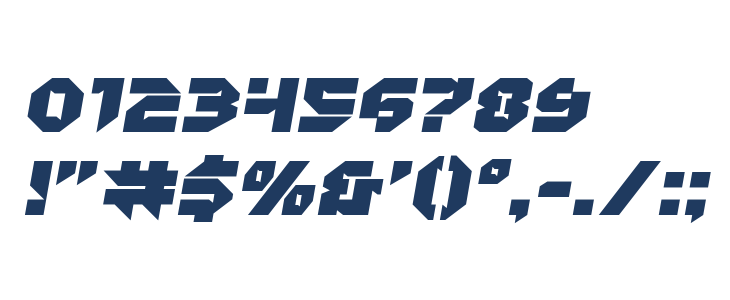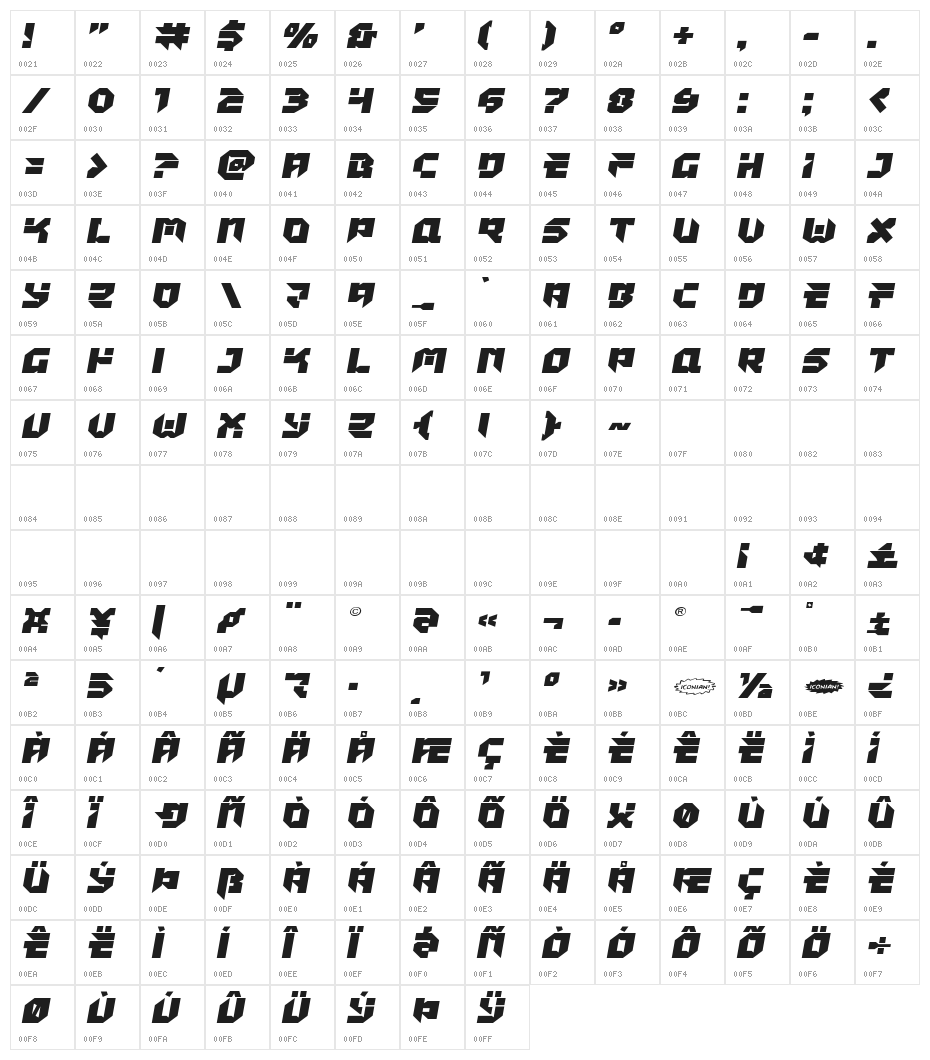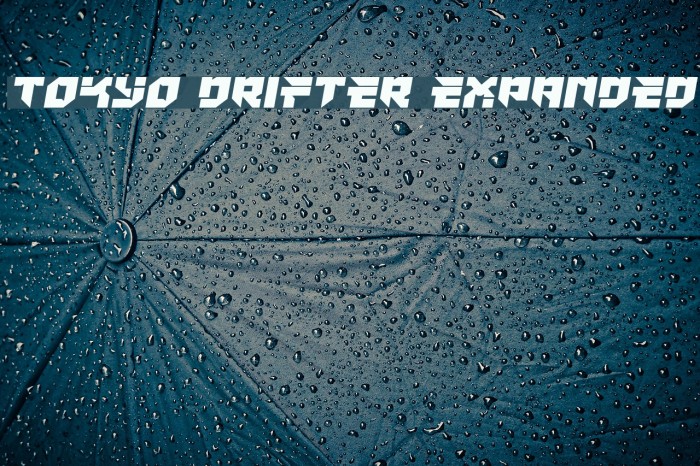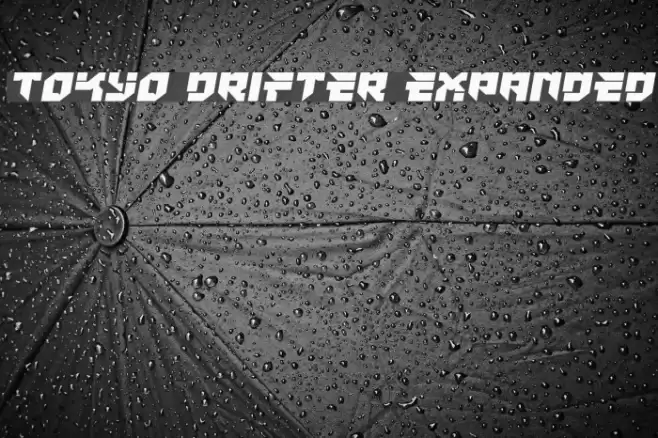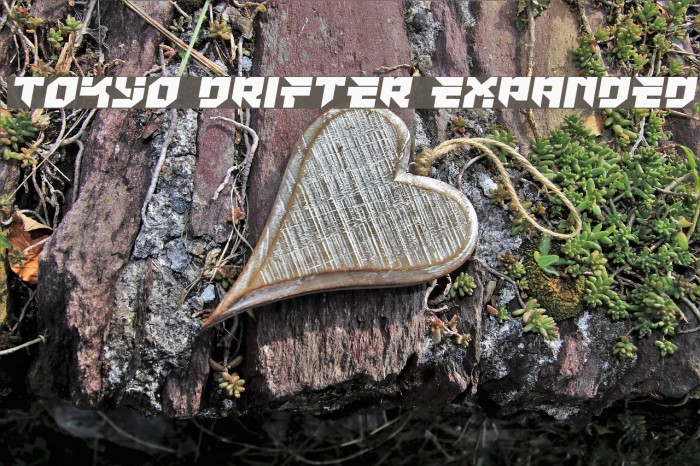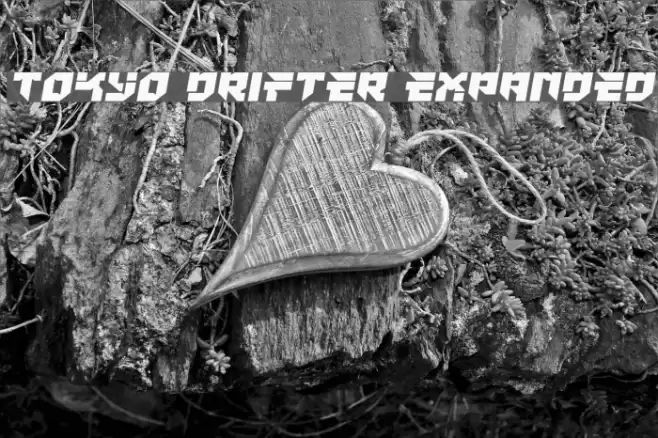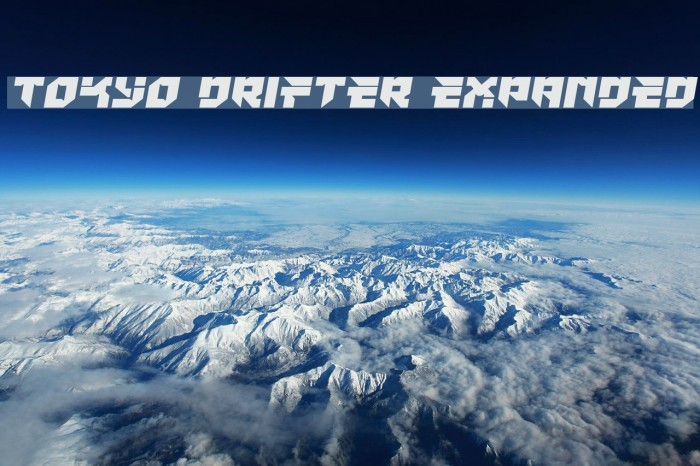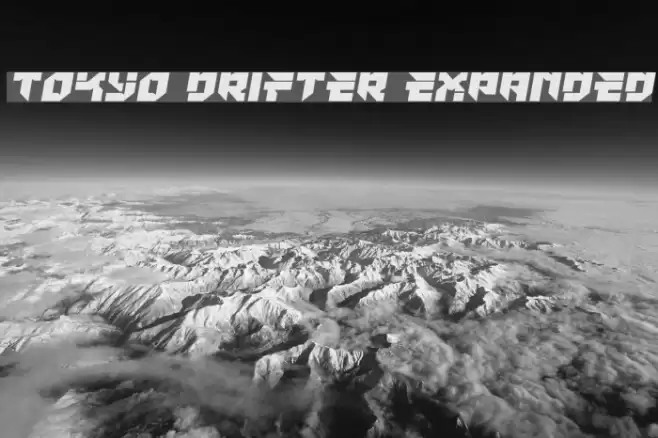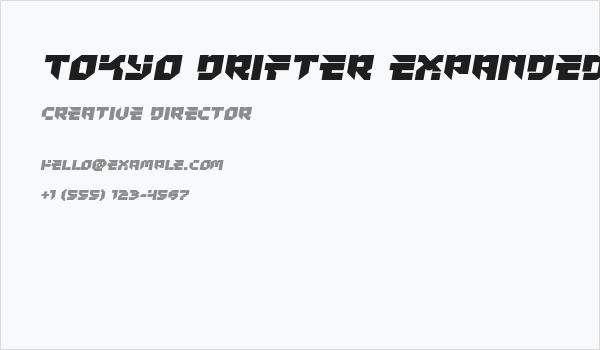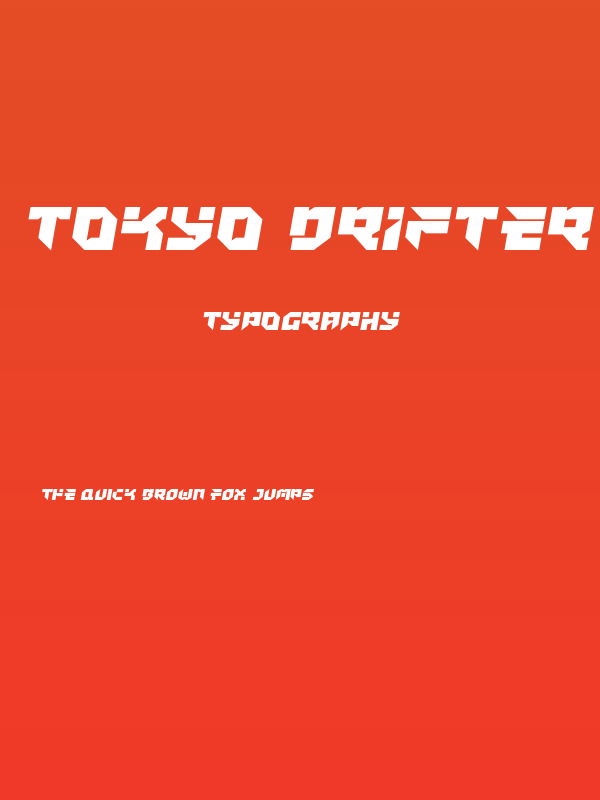
Tokyo Drifter Expanded Font
This font features a bold, angular design with a futuristic and edgy aesthetic. The characters are constructed with sharp, geometric shapes, giving them a dynamic and aggressive appearance. The uppercase and lowercase letters maintain a consistent style, with the lowercase slightly smaller but equally impactful. Numbers and special characters follow the same design principles, ensuring uniformity across all glyphs. The font's unique style makes it stand out, ideal for projects that require a modern and bold statement.
| Proposed Projects | Ideal for sci-fi themed projects, video game titles, movie posters, and branding that requires a modern, bold statement. |